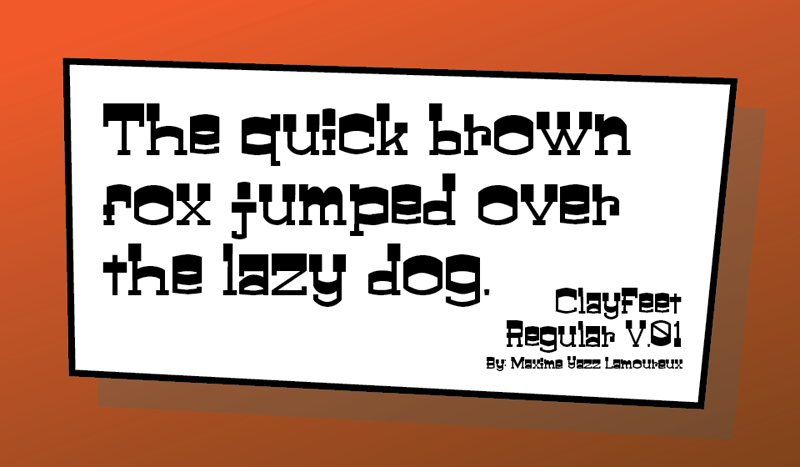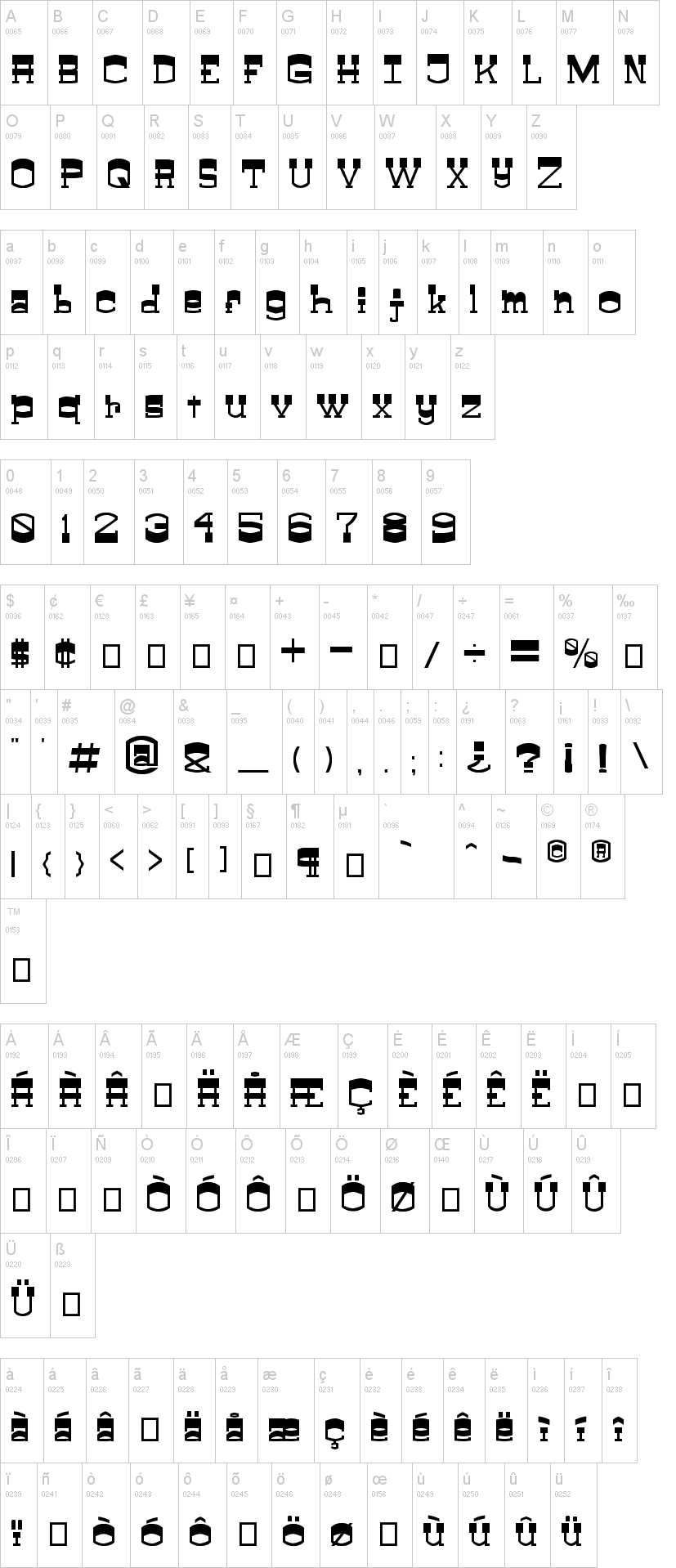
Note of the authorHey this is my first full font. It is most likely buggy, feel free to sent me feedback or advice on it so I can make it better. Use for decorative purpose mostly.